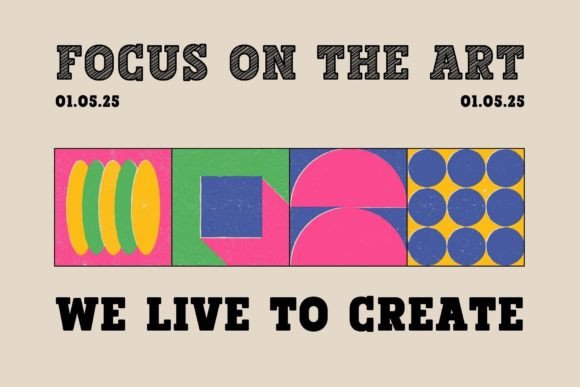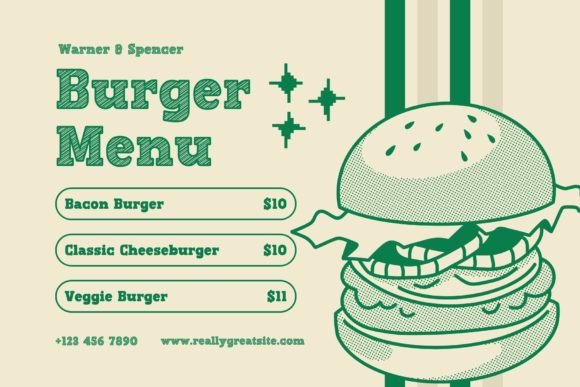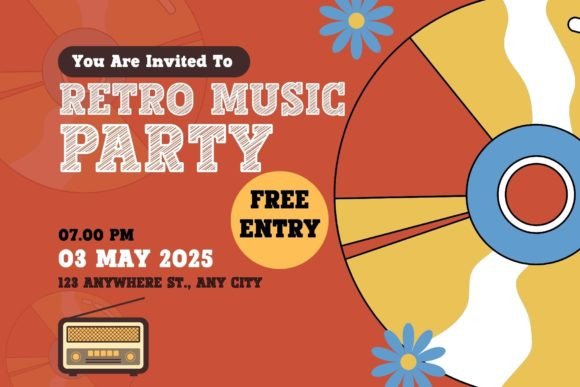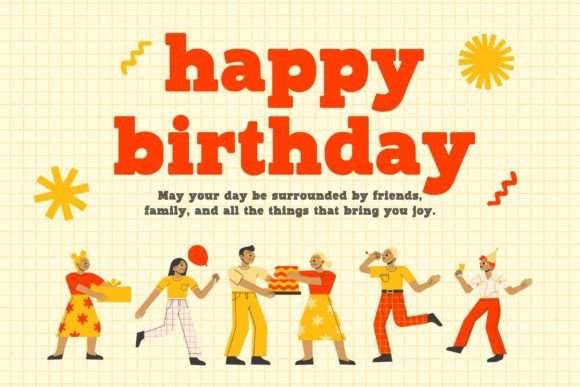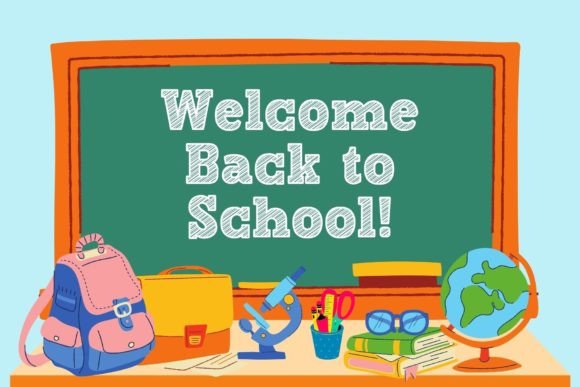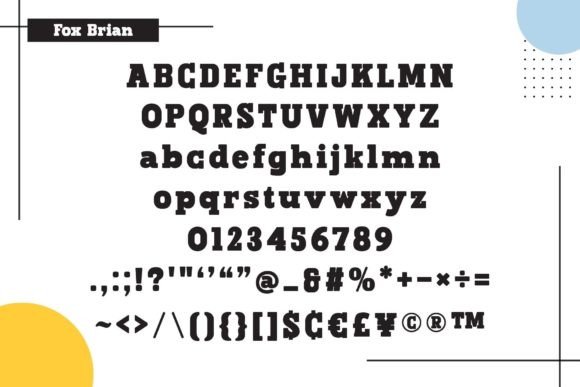
Introducing Fox Brian Font: A Cool and Fun Slab Serif Font
Are you tired of using the same old fonts in your designs? Look no further than Fox Brian Font, a vibrant and expressive slab serif font that’s perfect for adding a captivating and energetic touch to your projects. With its unique and fun design, Fox Brian and Fox Brian Scratch fonts are ideal for use in a variety of applications, from publications and menus to logos, business cards, and even printed on t-shirts.
The Features of Fox Brian Font
So, what makes Fox Brian Font so special? Here are just a few of its key features:
- Vibrant and Expressive Design: Fox Brian Font boasts a bold and eye-catching design that’s sure to grab attention. Its vibrant and expressive style makes it perfect for creating attention-grabbing headlines, t-shirt typography, banners, product labels, and more.
- Unique and Fun Style: With its slab serif design, Fox Brian Font adds a touch of playfulness and whimsy to your designs. Its fun and quirky style is sure to make your projects stand out from the crowd.
- Versatile and Adaptable: Fox Brian Font is incredibly versatile and can be used in a wide range of applications, from digital designs to print materials.
Uses for Fox Brian Font
So, what can you use Fox Brian Font for? The possibilities are endless! Here are just a few ideas to get you started:
- Publications: Use Fox Brian Font to add a pop of personality to your publications, such as magazines, newspapers, and brochures.
- Menus: Add a fun and playful touch to your restaurant or cafe menu with Fox Brian Font.
- Logos and Branding: Use Fox Brian Font to create a unique and memorable logo for your business or brand.
- Business Cards: Stand out from the crowd with Fox Brian Font on your business cards.
- T-Shirts and Apparel: Print Fox Brian Font on t-shirts, hoodies, and other apparel for a fun and eye-catching design.
Why Choose Fox Brian Font?
With so many fonts to choose from, why should you choose Fox Brian Font? Here are just a few reasons:
- Uniqueness: Fox Brian Font is a one-of-a-kind font that’s sure to make your designs stand out.
- Easy to Read: Despite its bold and playful design, Fox Brian Font is easy to read, even in smaller sizes.
- High-Quality Design: Fox Brian Font is designed with high-quality craftsmanship, ensuring a professional finish in every project.
Tips for Using Fox Brian Font
Here are a few tips for getting the most out of Fox Brian Font:
- Experiment with Colors: Fox Brian Font looks great in a variety of colors, so don’t be afraid to experiment and find the perfect hue for your design.
- Pair with Other Fonts: Fox Brian Font pairs well with other fonts, so try combining it with a sans serif font for a contrasting look.
- Use it Sparingly: While Fox Brian Font is a fun and playful font, it can be overwhelming if used too much. Use it sparingly to add a pop of personality to your designs.
In conclusion, Fox Brian Font is a cool and fun slab serif font that’s perfect for adding a captivating and energetic touch to your designs. With its unique and expressive design, Fox Brian and Fox Brian Scratch fonts are ideal for use in a wide range of applications, from publications and menus to logos, business cards, and even printed on t-shirts. So why not give Fox Brian Font a try and see the difference it can make in your designs?